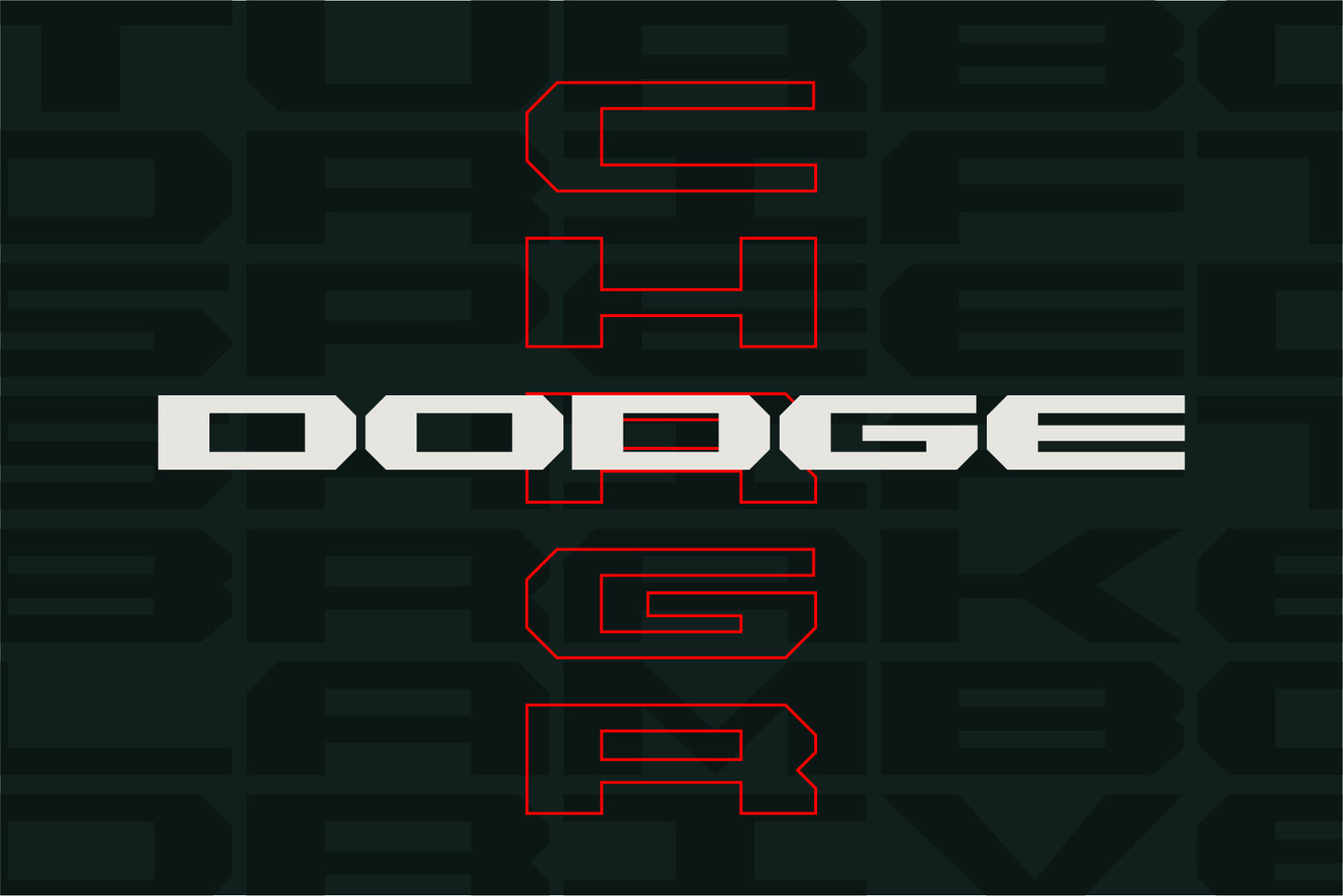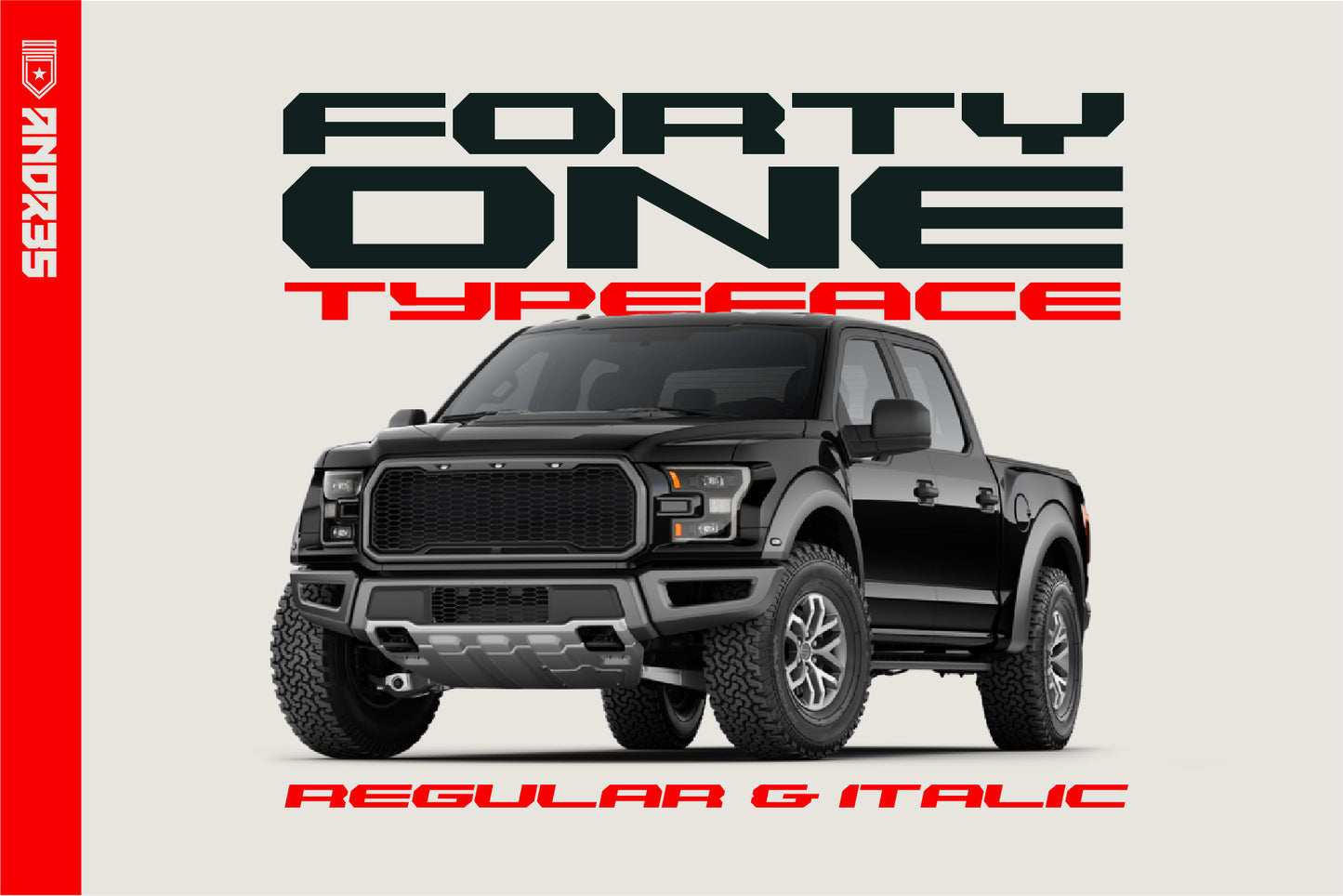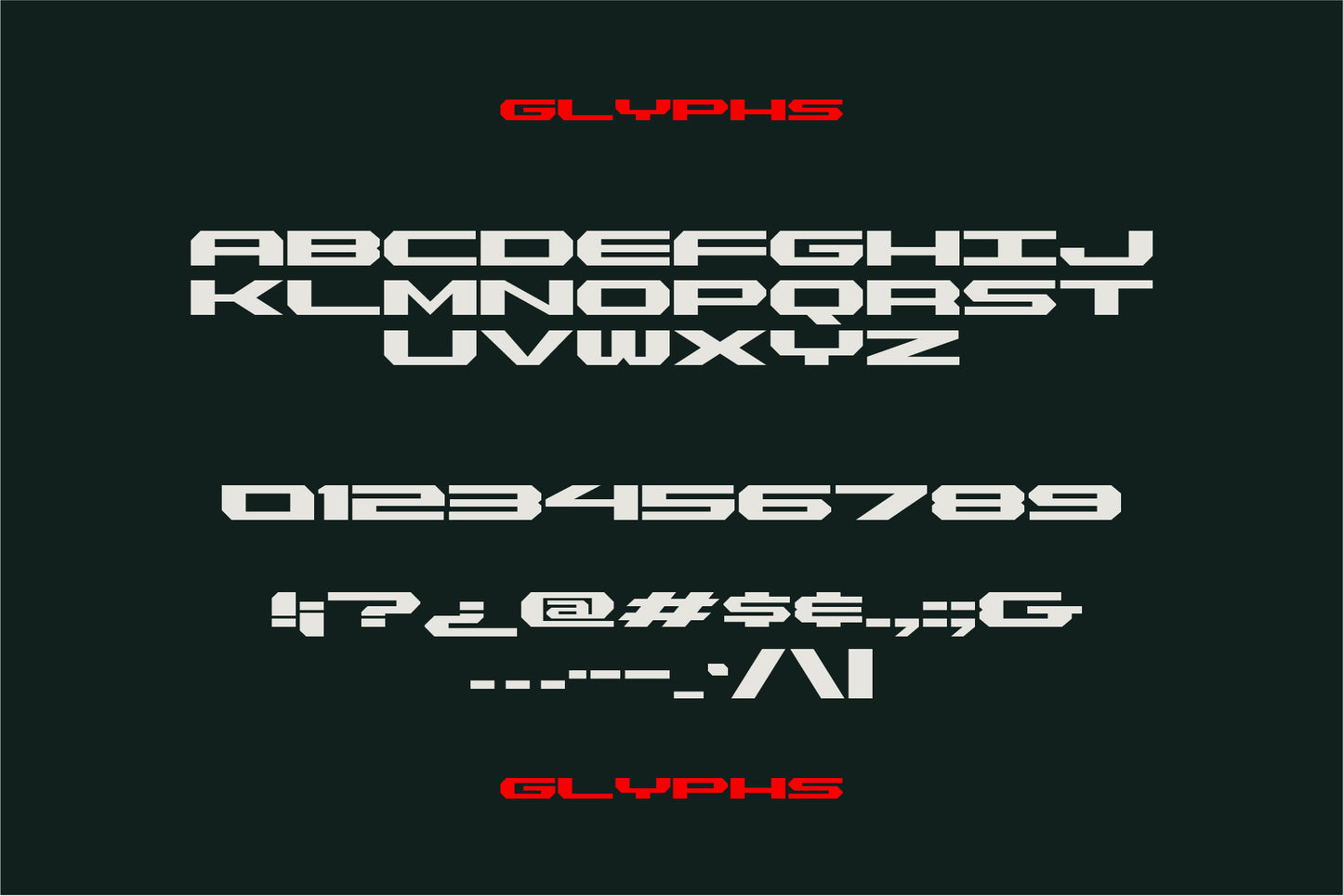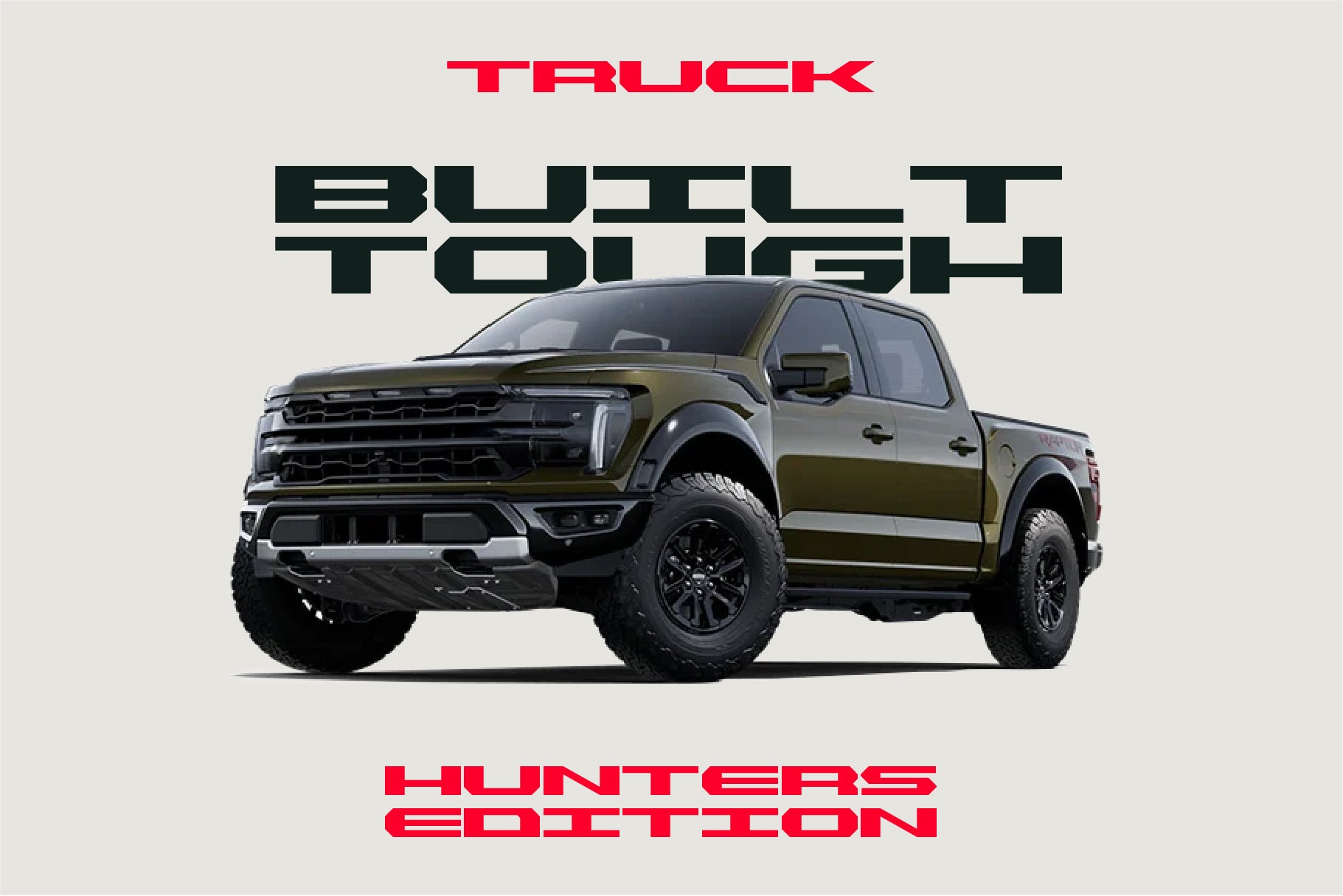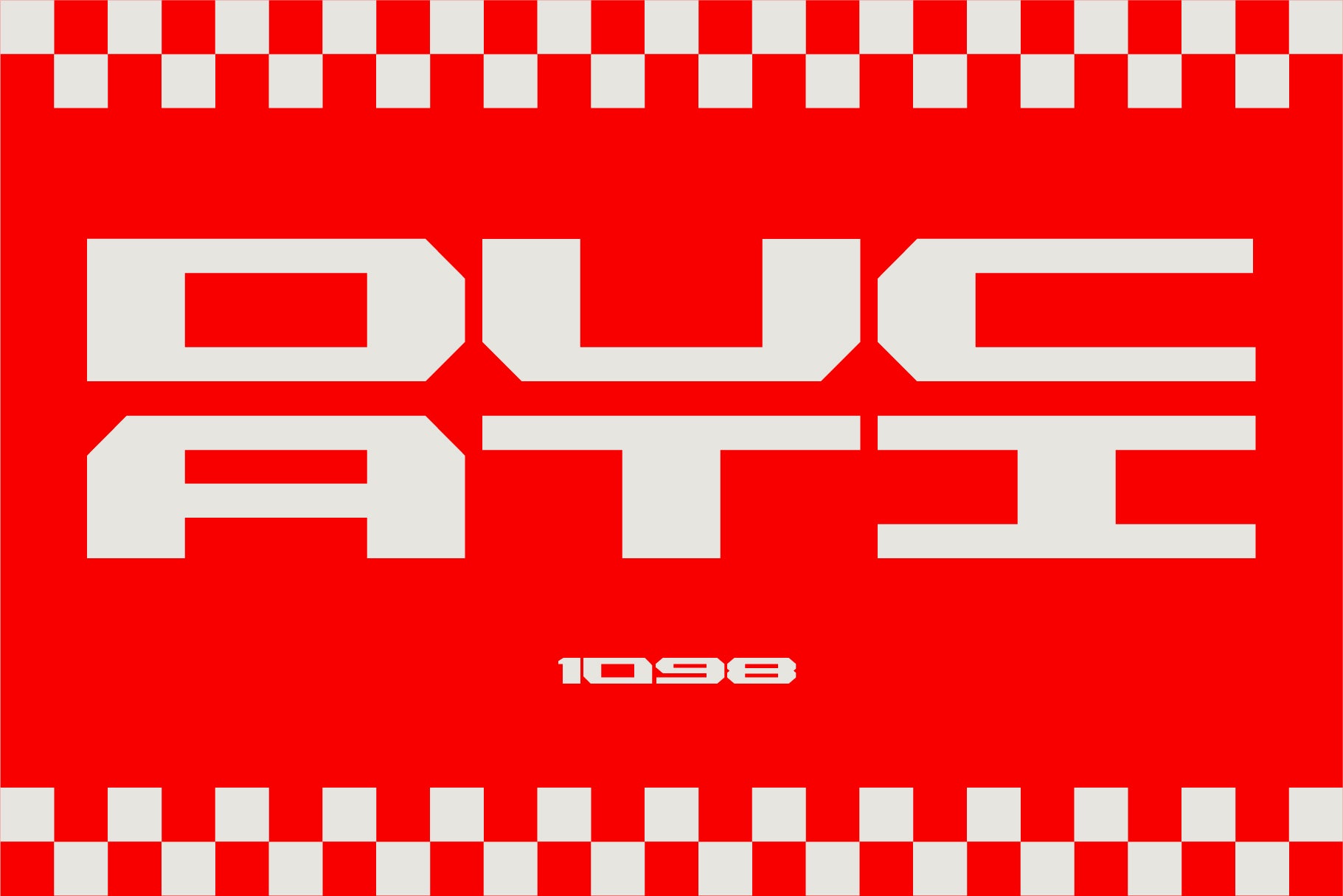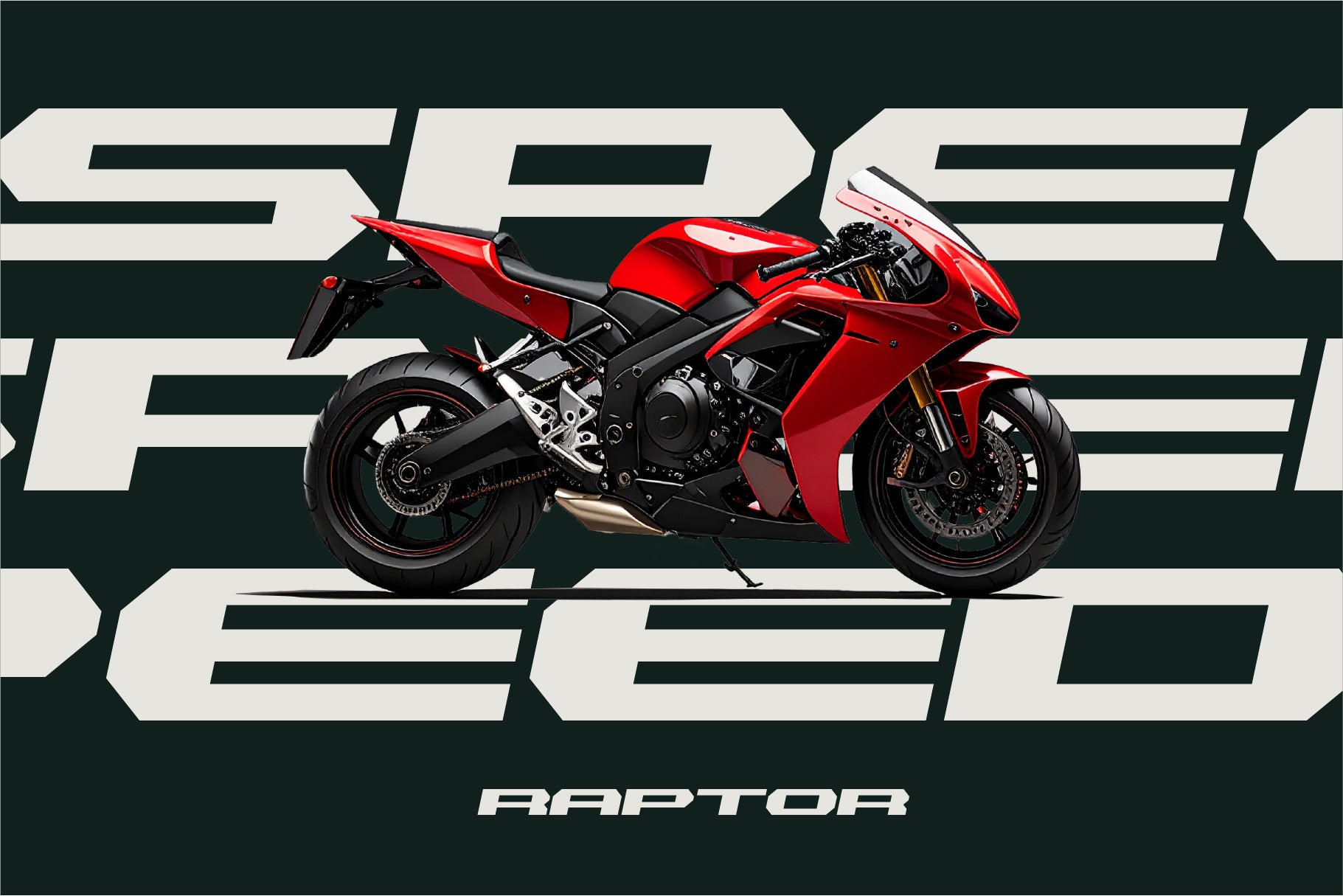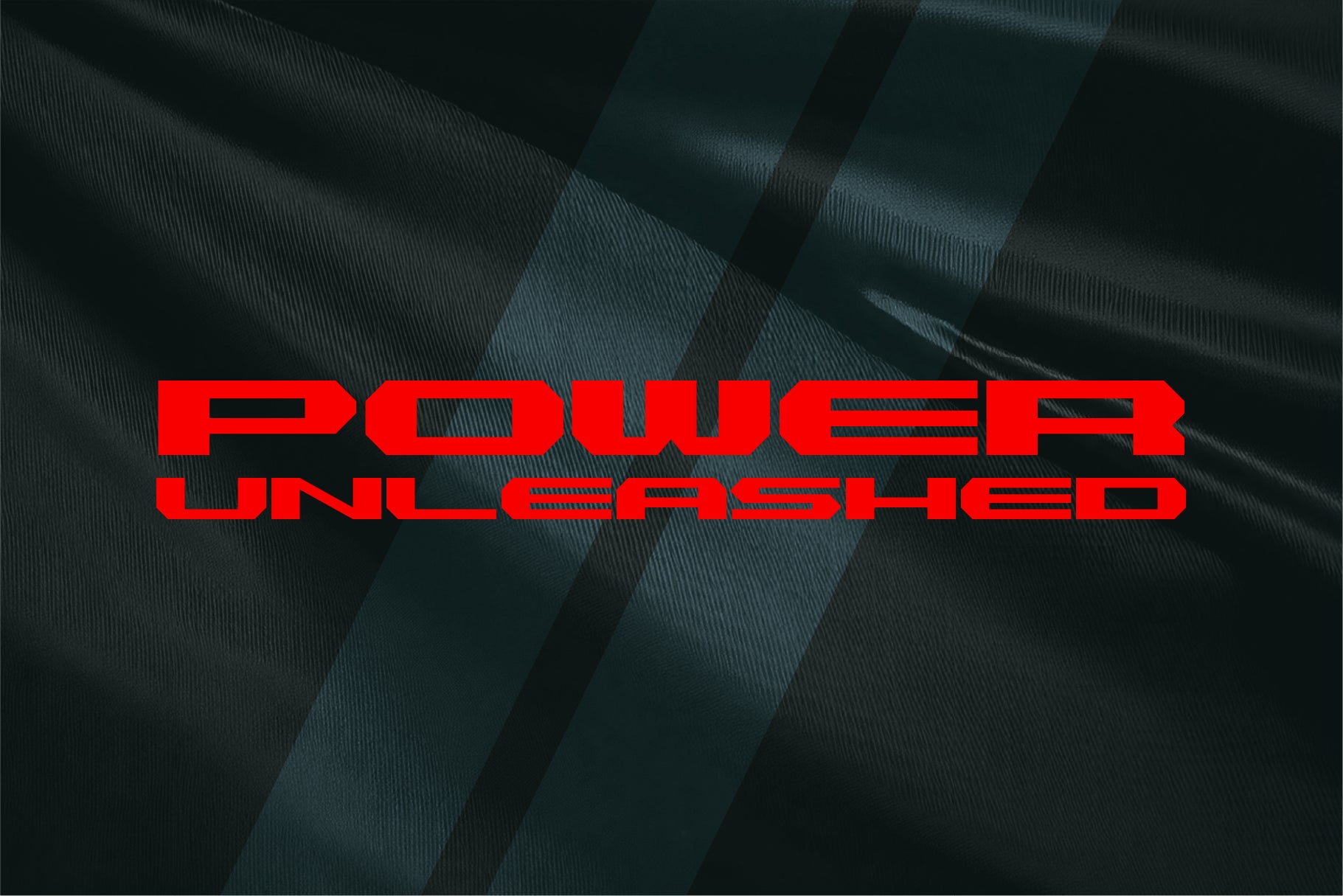
Forty One Car Font
Introducing the Forty One Car font. A new modular typeface very much inspired by automotive / racing typography. It's built for wide, landscape style layouts that demand a bold headline. Built on a condensed height grid, Forty One brings a classic, but foundational feel that would complement any design requiring its style.
The italic (technically slanted) version offers a more energetic stance adding life and movement to your design. Go big with it.
Features Include:
• All Caps style (type in upper/lowercase)
• A couple of alternate glyphs
• 2 styles (regular & italic)